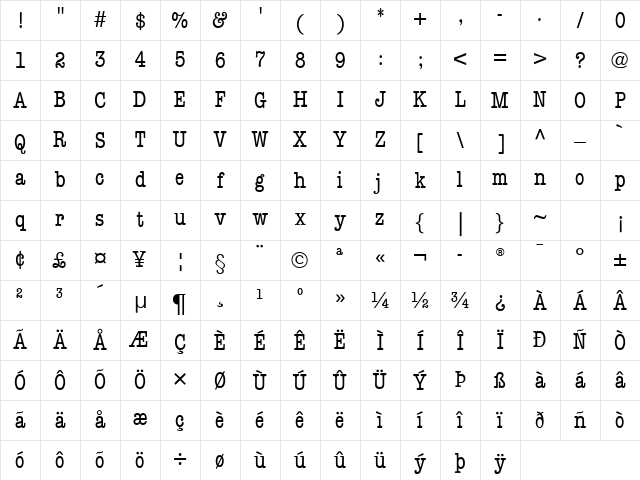
AmericanTypew LH Med Cond Free Font
AmericanTypew LH Med Cond
Style: Med Cond
Design Context for AmericanTypew LH
AmericanTypew LH is a composed and adaptable typeface that performs quietly and consistently across a wide range of design contexts. Its narrow stance lets it pack a punch even in space-constrained designs.